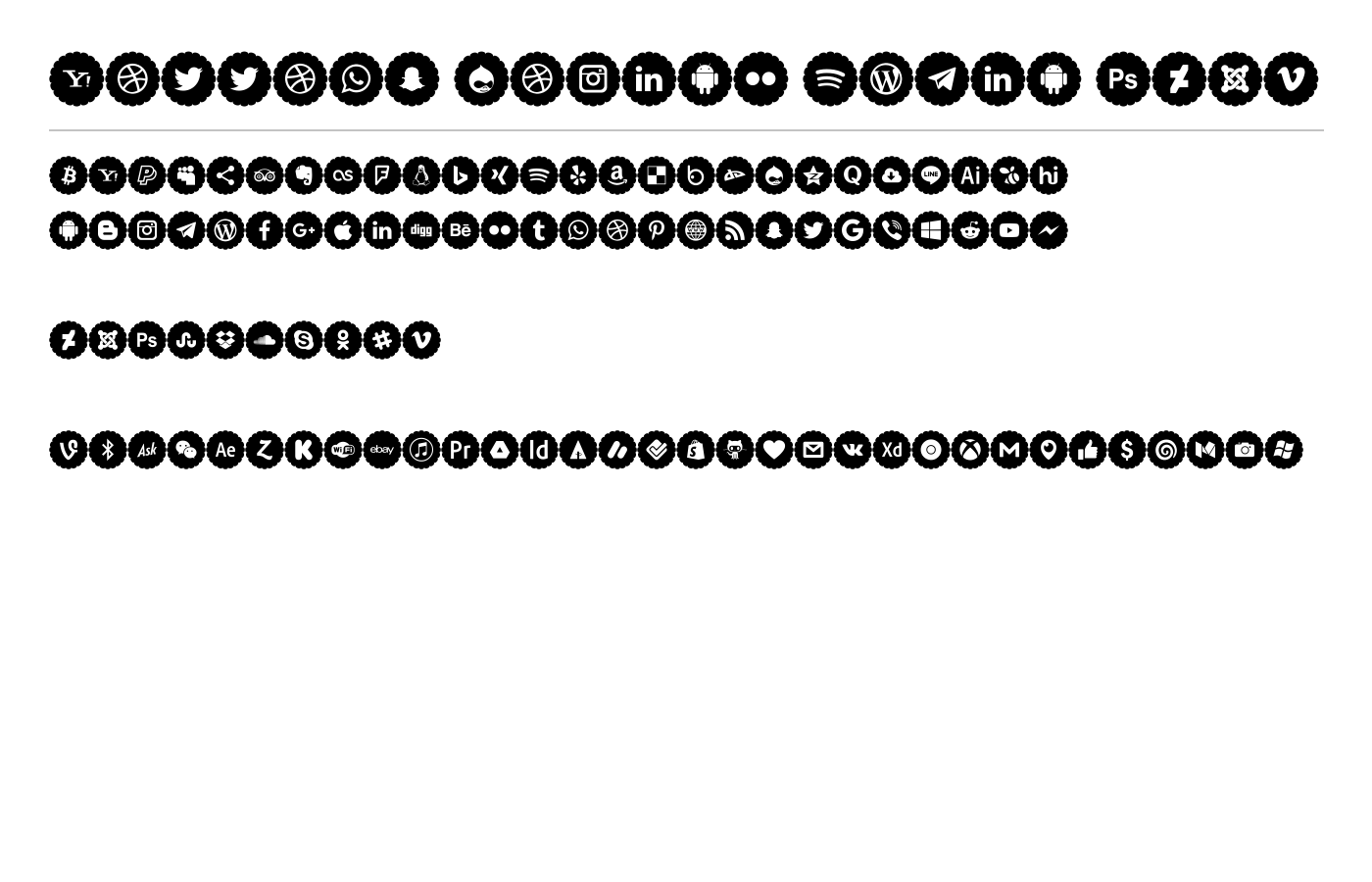
Bottons Social Media 2019 is a unique symbol-based font that features a wide range of popular social media and tech brand icons enclosed in circular, scalloped-edge badges. Its bold, solid black shapes make it highly visible and ideal for digital and print designs that require clear, recognizable social media branding. This font works best for social media profiles, websites, and marketing materials where iconography enhances user engagement and brand connectivity.
Bottons Social Media 2019 Font
About Bottons Social Media 2019 Font